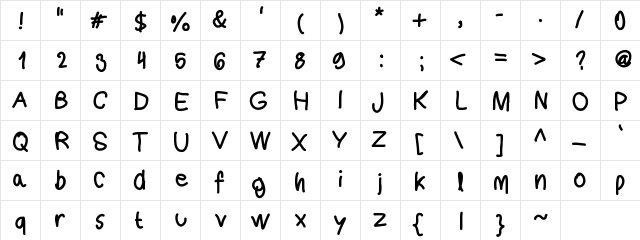
roundmol Medium
Design Context for roundmol Typeface
roundmol uses gentle rounded endings to create a warm, inviting typographic personality — less corporate than geometric sans, more refined than playful display fonts.
A natural fit for tech startups, health and wellness brands, children's products, and friendly consumer apps.
Font Pairing: Pairs well with a rounded or humanist sans for body copy, maintaining the friendly tone without relying on roundmol to carry extended reading.
Pro Tip: Pair roundmol with a geometric sans for a balanced system — the rounded softness works as a warm counterpoint to harder-edged companions.